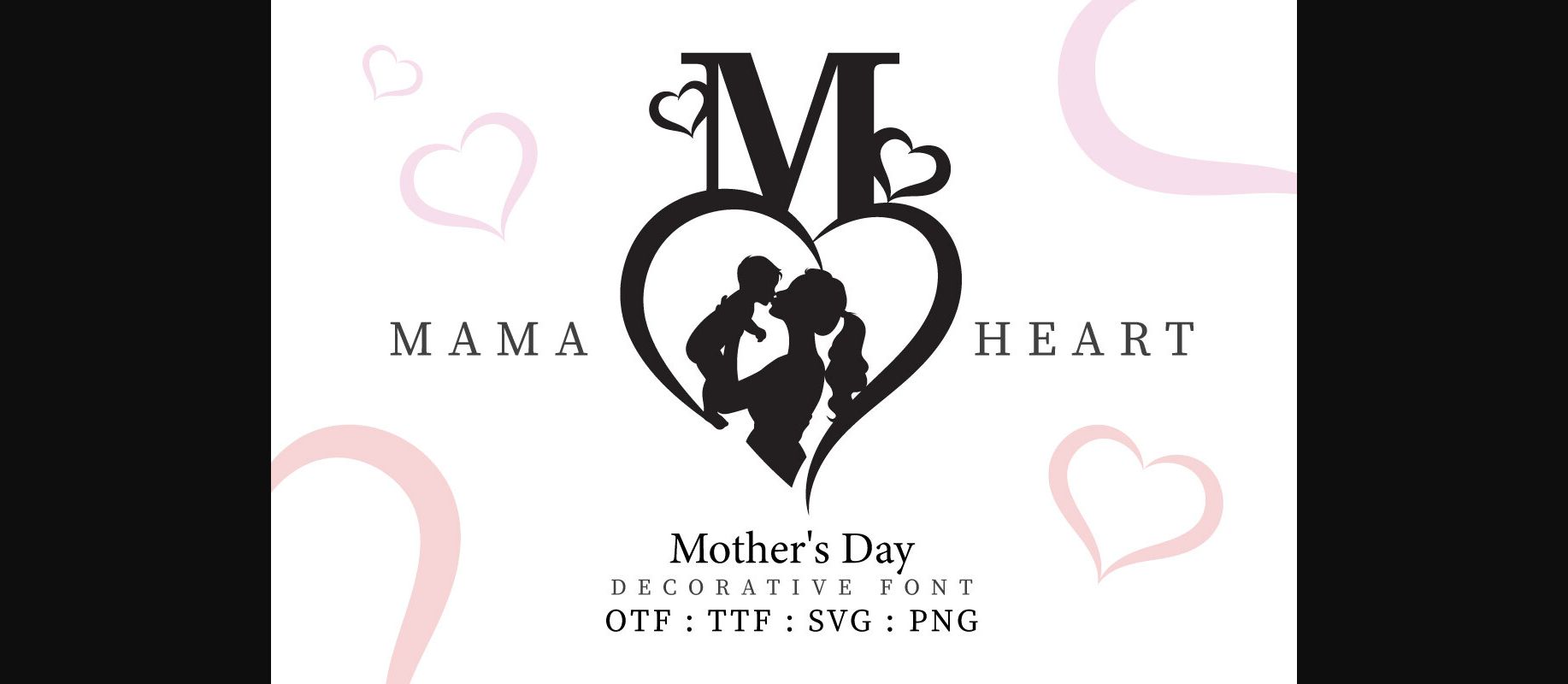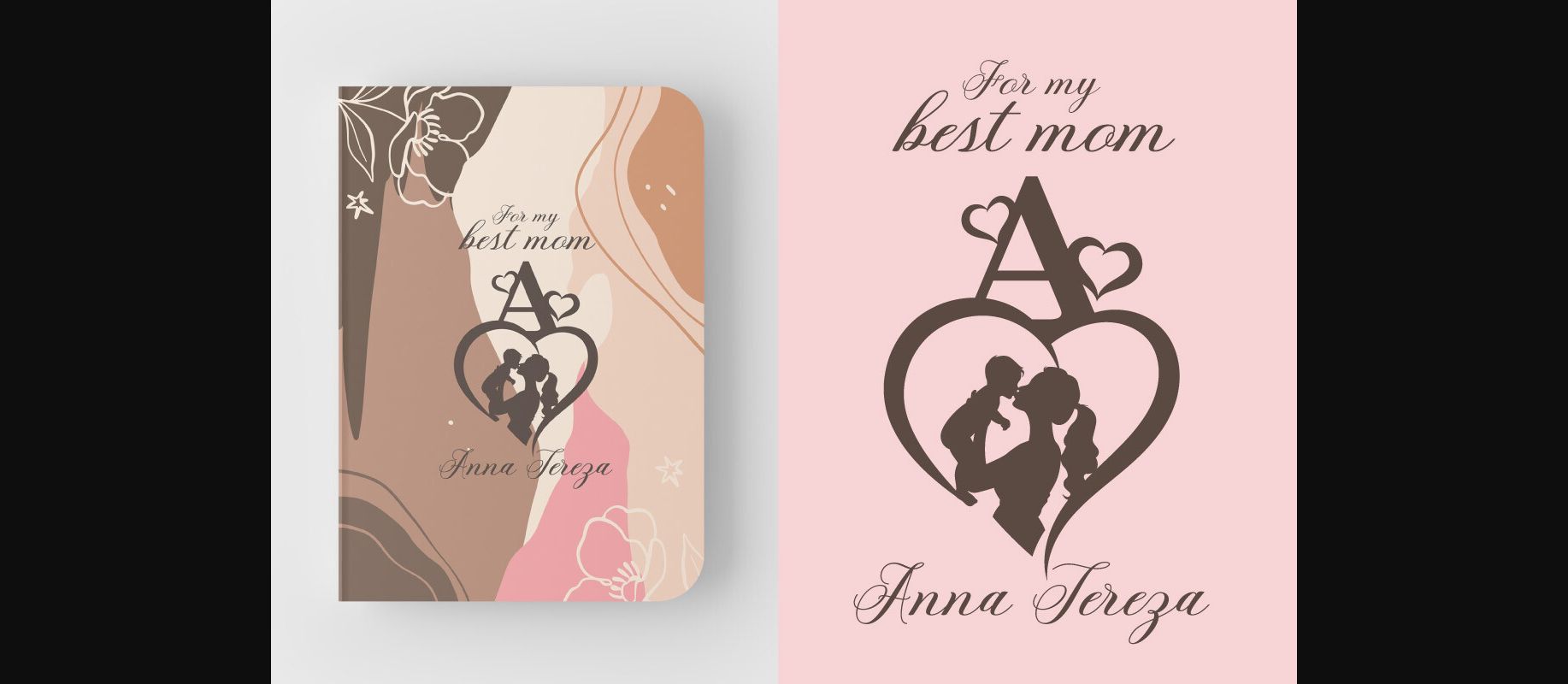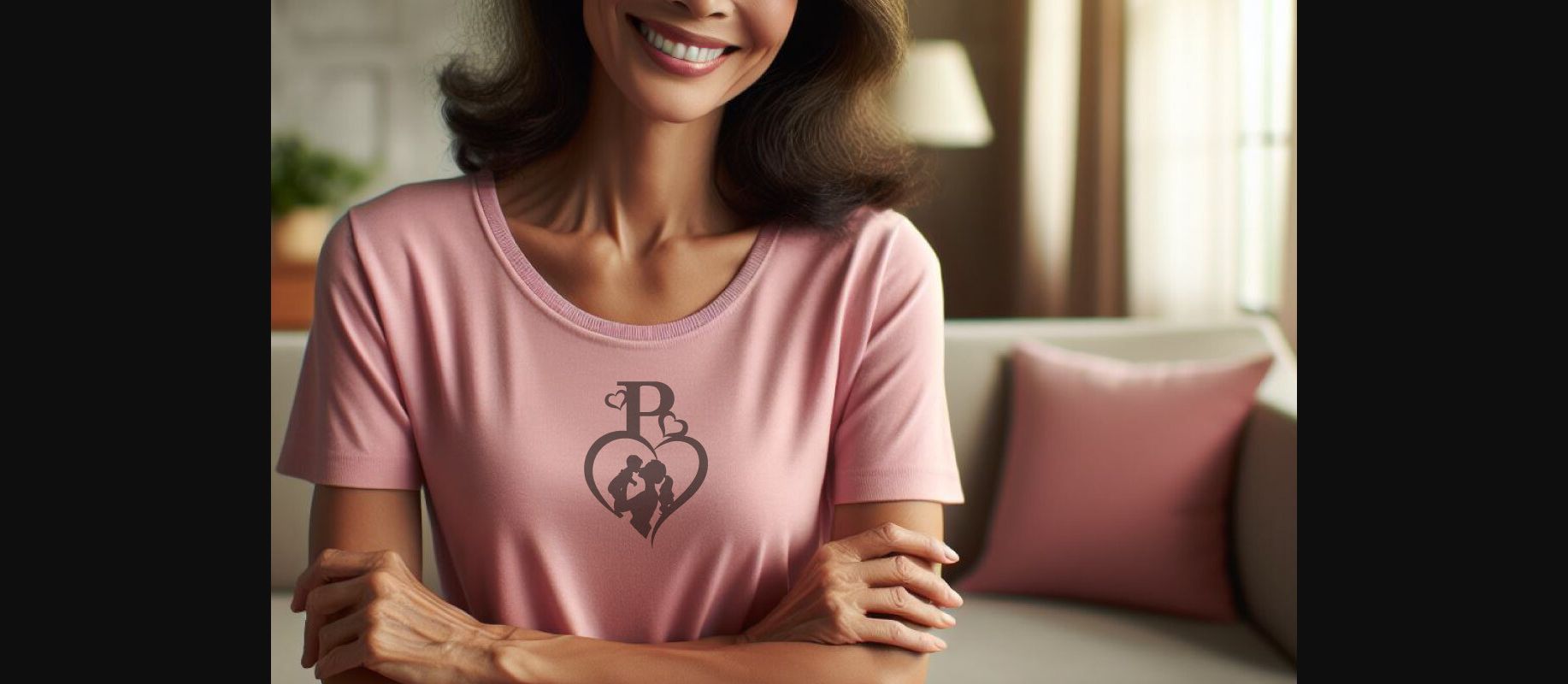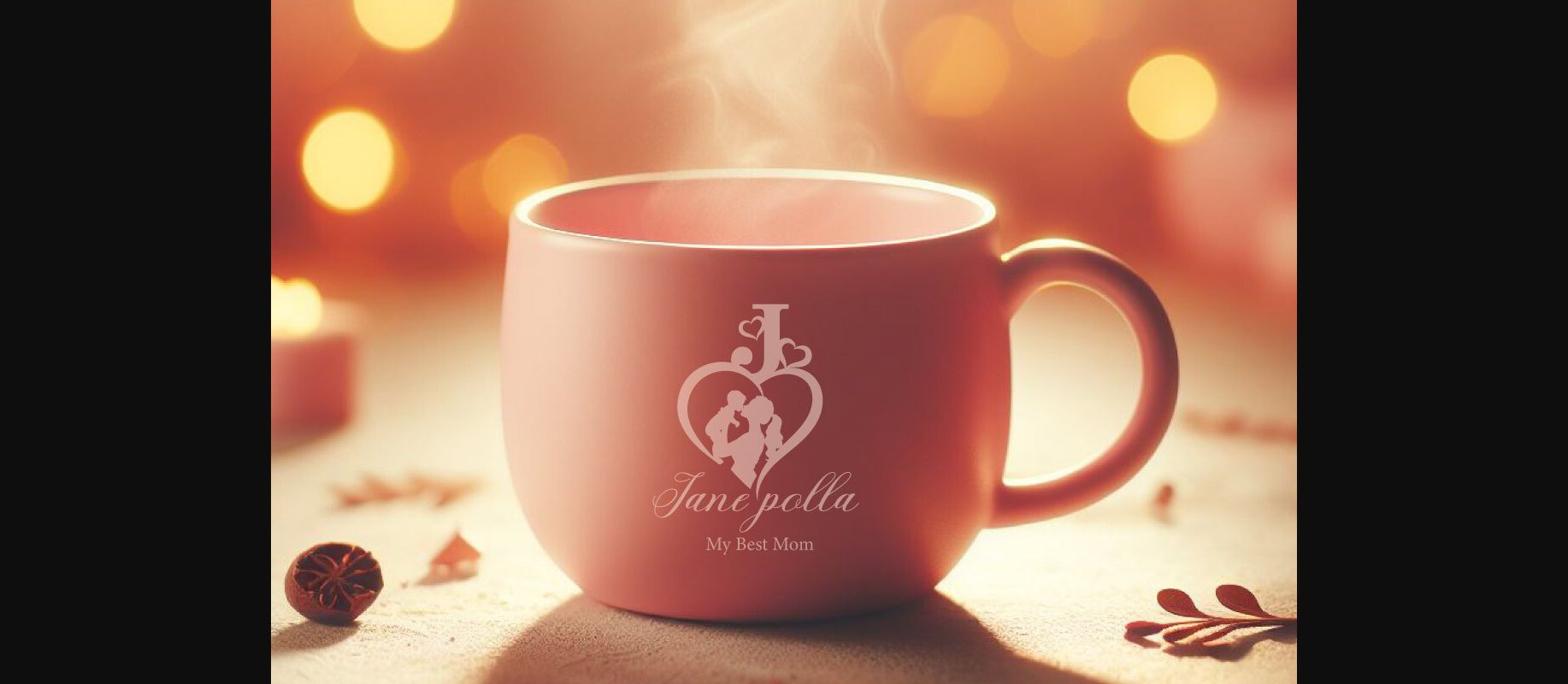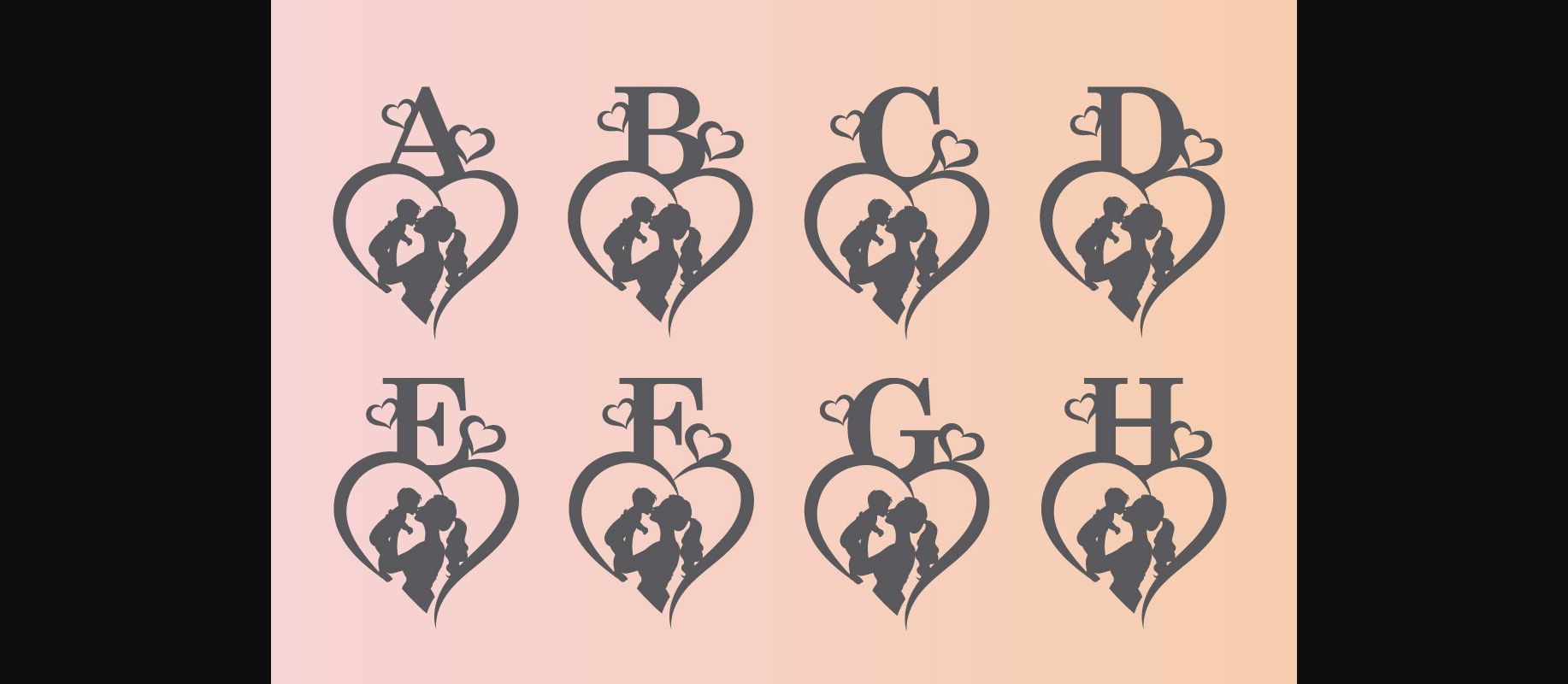
Mama Heart Font
About Mama Heart Font
Mama Heart is a gorgeous decorative font, that fits incredibly well to this time of the year. No matter the topic, this font will be an incredible asset to your fonts’ library, as it has the potential to elevate any creation.